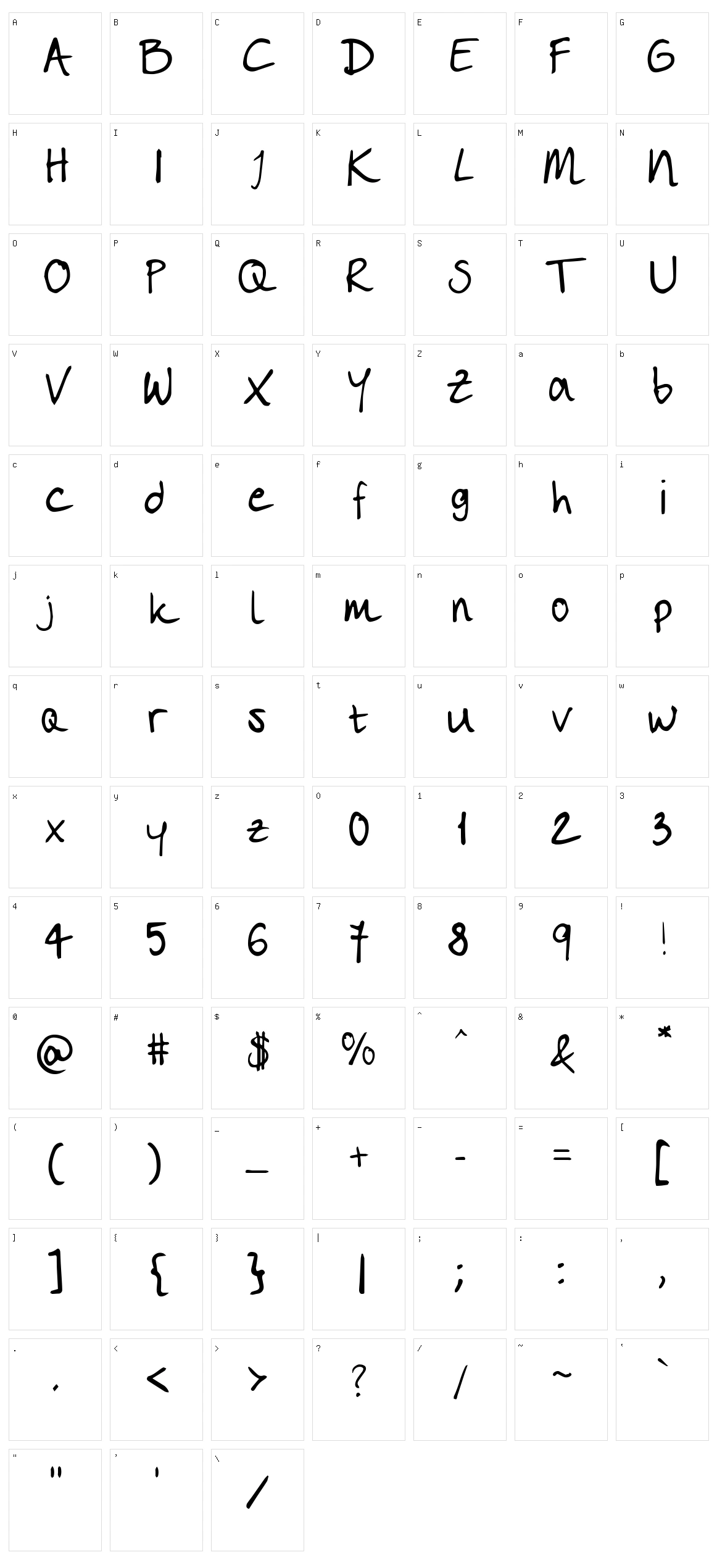
The free font Livy's life is carefully designed by lkoopman - SWAT, showcasing a thoughtful balance of creativity and usability and falls under the Script font style. When you download the ZIP file, it contains only 23.68 KB of font files, making it lightweight and quick to download. Please review the license details below to understand permitted usage and distribution rights. If license information is not available, we recommend using this font for personal projects only or contacting the author directly for commercial usage permissions.